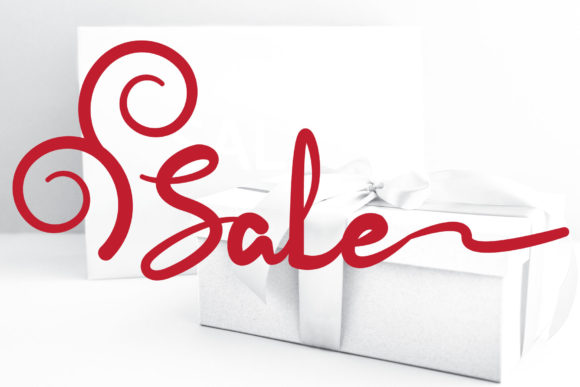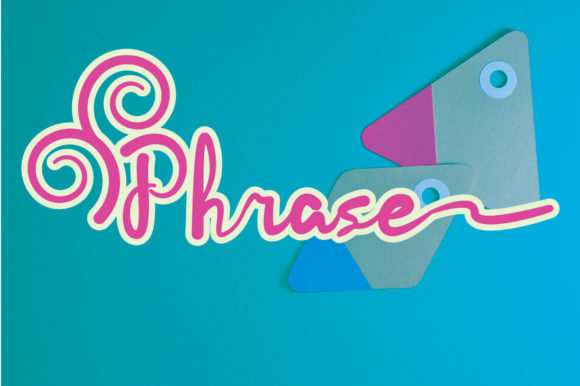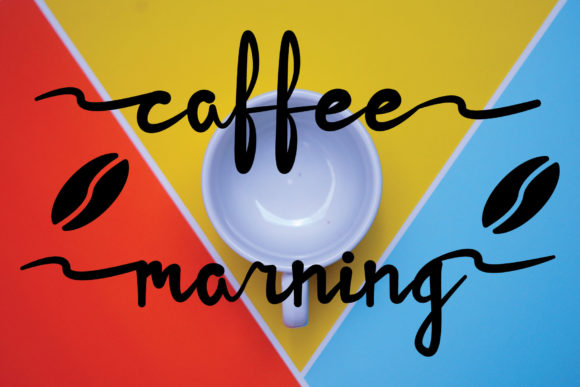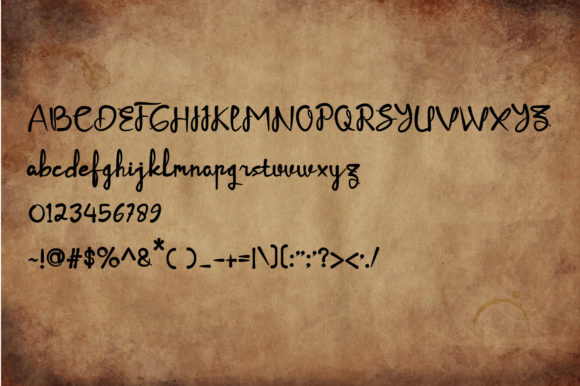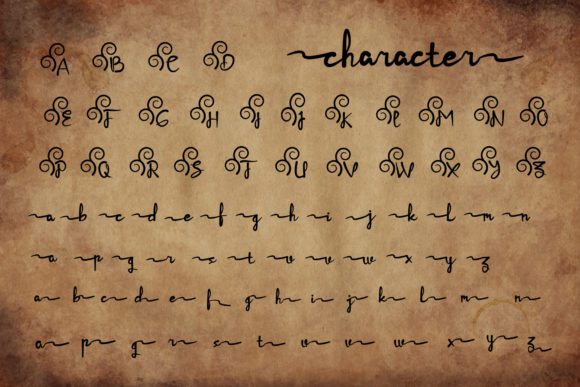
Introducing Discount Big Sale Font: The Perfect Retro-Styled Handwritten Font for Your Designs
Are you a designer or crafter looking for a unique and beautiful font to add a personal touch to your creations? Look no further than Discount Big Sale Font, a stunning retro-styled handwritten font that’s perfect for a variety of design projects. In this article, we’ll take a closer look at the features and benefits of Discount Big Sale Font, and explore how you can use it to elevate your designs.
What is Discount Big Sale Font?
Discount Big Sale Font is a beautiful retro-styled handwritten font that’s designed to add a touch of elegance and sophistication to your designs. With its classic, cursive style, this font is perfect for creating wedding invitations, thank you cards, quotes, greeting cards, logos, business cards, and every other design that needs a handwritten touch.
Key Features of Discount Big Sale Font
- Retro-Styled Design: Discount Big Sale Font features a unique retro-styled design that’s reminiscent of classic handwritten fonts from the past.
- Handwritten Touch: This font is designed to give your designs a personal, handwritten touch that’s perfect for creating unique and eye-catching designs.
- High-Quality Design: Discount Big Sale Font is designed with high-quality craftsmanship in mind, ensuring that your designs look professional and polished.
- Versatile: This font is versatile and can be used for a wide range of design projects, from wedding invitations to business cards.
How to Use Discount Big Sale Font in Your Designs
Discount Big Sale Font is easy to use and can be incorporated into your designs in a variety of ways. Here are a few ideas to get you started:
- Wedding Invitations: Use Discount Big Sale Font to create beautiful, custom wedding invitations that set the tone for your special day.
- Thank You Cards: Add a personal touch to your thank you cards with this stunning handwritten font.
- Quotes and Posters: Use Discount Big Sale Font to create eye-catching quotes and posters that showcase your favorite inspirational sayings.
- Logos and Branding: Incorporate this font into your logos and branding materials to add a touch of elegance and sophistication.
- Greeting Cards: Create custom greeting cards for special occasions, such as birthdays, holidays, and anniversaries.
Benefits of Using Discount Big Sale Font
There are many benefits to using Discount Big Sale Font in your designs. Here are a few:
- Unique and Eye-Catching: This font is designed to stand out and add a unique touch to your designs.